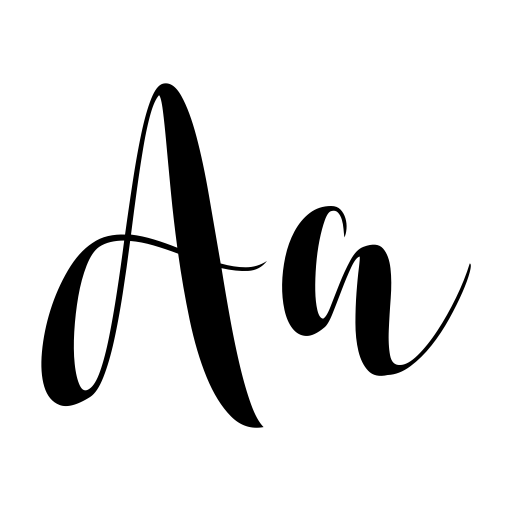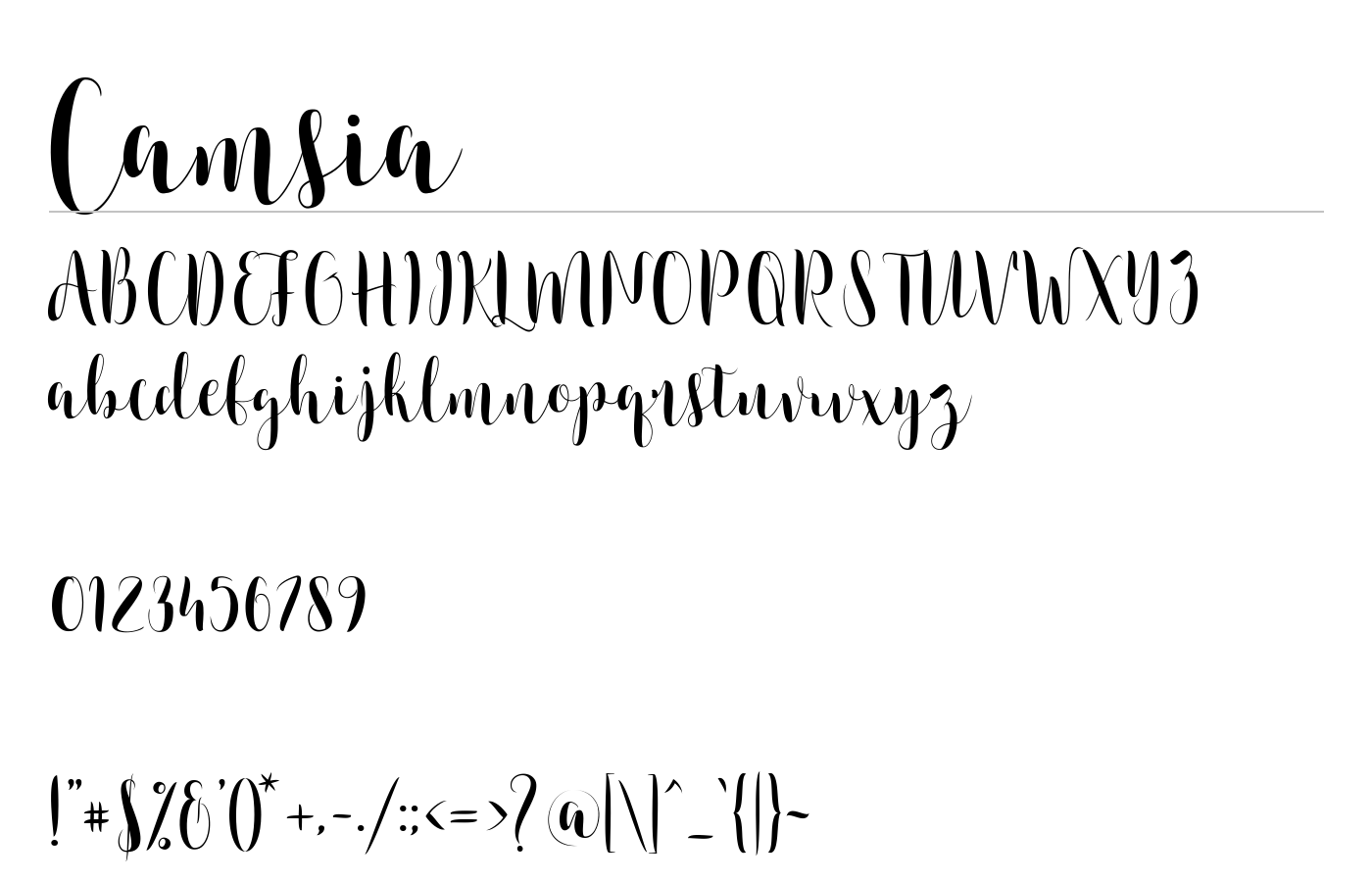
Camsia is a stylish script font with elegant, flowing strokes that blend thick and thin contrasts for a graceful, handwritten feel. Its tall, narrow letterforms and delicate curves make it perfect for luxury branding, wedding invitations, and sophisticated editorial design. This font adds a touch of refinement and charm wherever a classy, feminine appearance is desired.
Camsia Font